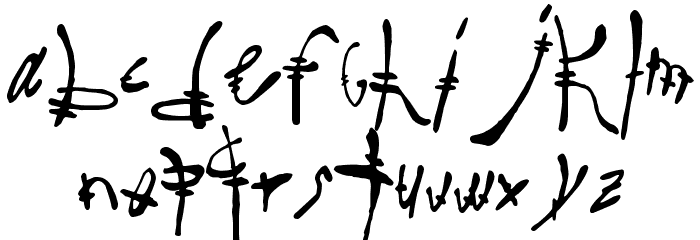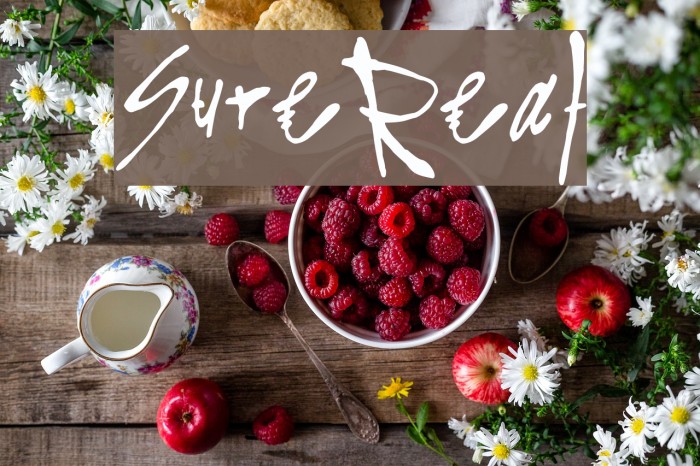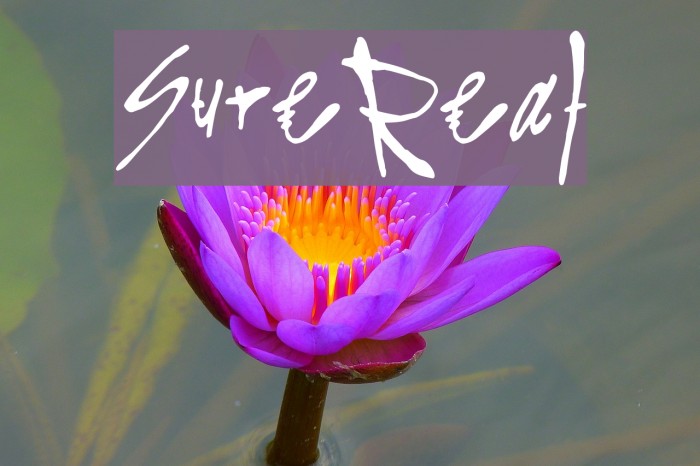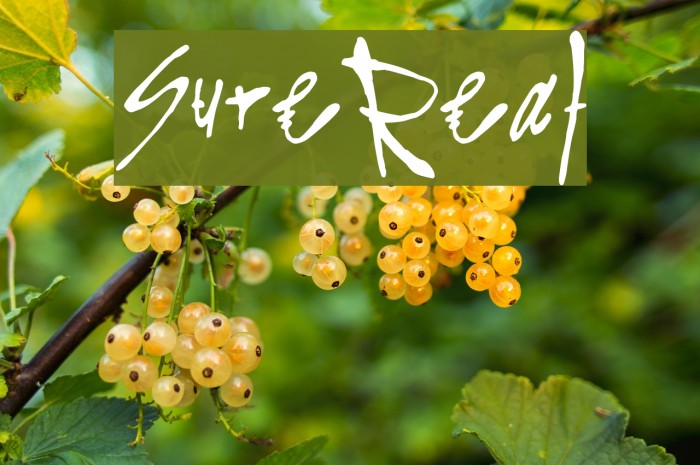
SureReal Font
This font exhibits a highly expressive and artistic style, characterized by its erratic and dynamic strokes. The letters appear hand-drawn, with a raw and spontaneous feel, as if sketched with a brush or pen. The uppercase and lowercase letters maintain a consistent level of unpredictability, with varying line thicknesses and angles that create a sense of movement and energy. The numerals and special characters follow the same aesthetic, contributing to the overall cohesive yet chaotic appearance. This font is ideal for projects that require a bold, unconventional look, capturing attention with its unique and rebellious flair.
An expressive, hand-drawn font with dynamic and erratic strokes.
- Proposed Projects: Ideal for album covers, graffiti art, posters, and any project needing a bold, artistic touch.
- Use Case: Logos, Headlines, Artistic projects